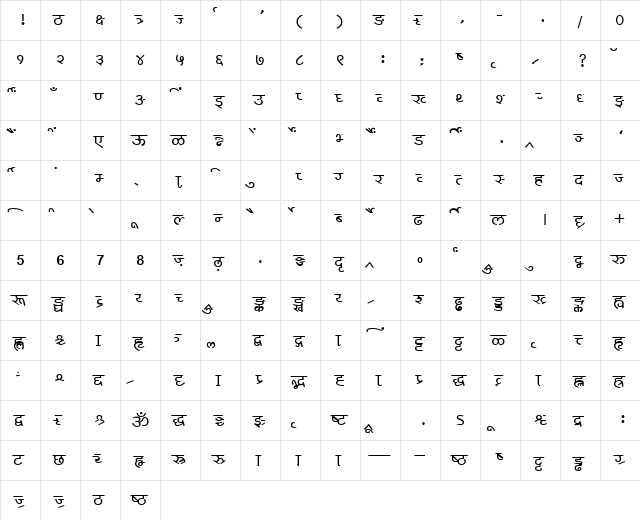
AkrutiDevParimala Normal Font Preview
AkrutiDevParimala Normal
Design Context for AkrutiDevParimala Typeface
AkrutiDevParimala takes a measured approach to typography — its balanced proportions and neutral character make it a reliable workhorse for both digital and print work.